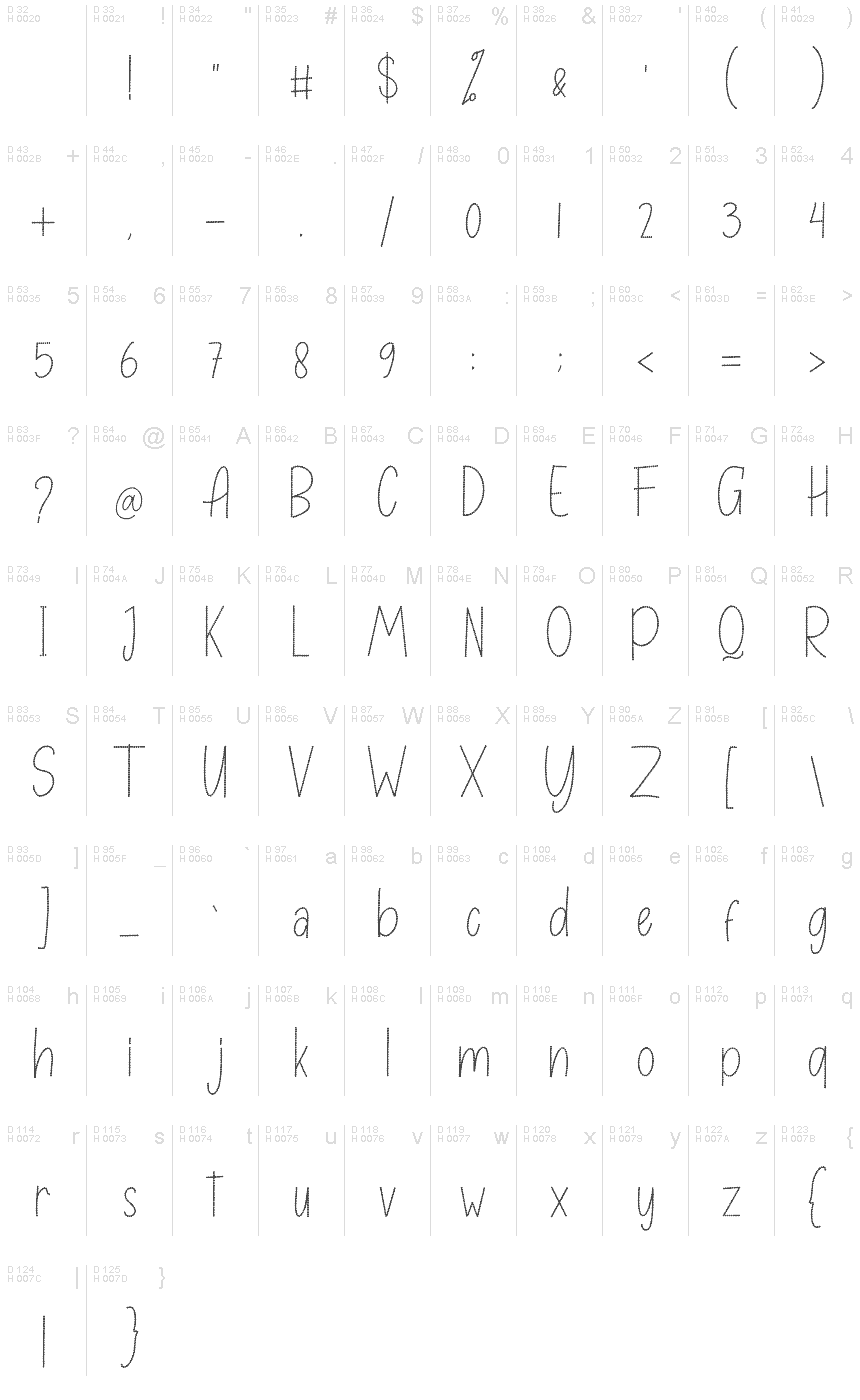
Yuscra
Yuscra font by Skiiller Studio is a light handwritten font with a condensed width. It bears a whimsical appearance suitable for both serious and humorous settings. The decorative font is stylish, easy on the eyes, and can carry content naturally at smaller sizes. At larger sizes, its dots appear more clearly as an artistic touch to any textual design.
Take seamless advantage of incorporating this free decorative typeface in your designs where diving into deep details is not an option. Projects suitable for Yuscra include web design, banners, cards, invitations, creative text displays or headings on magazines and newspapers, covers for published books or e-books, packaging labels etc.